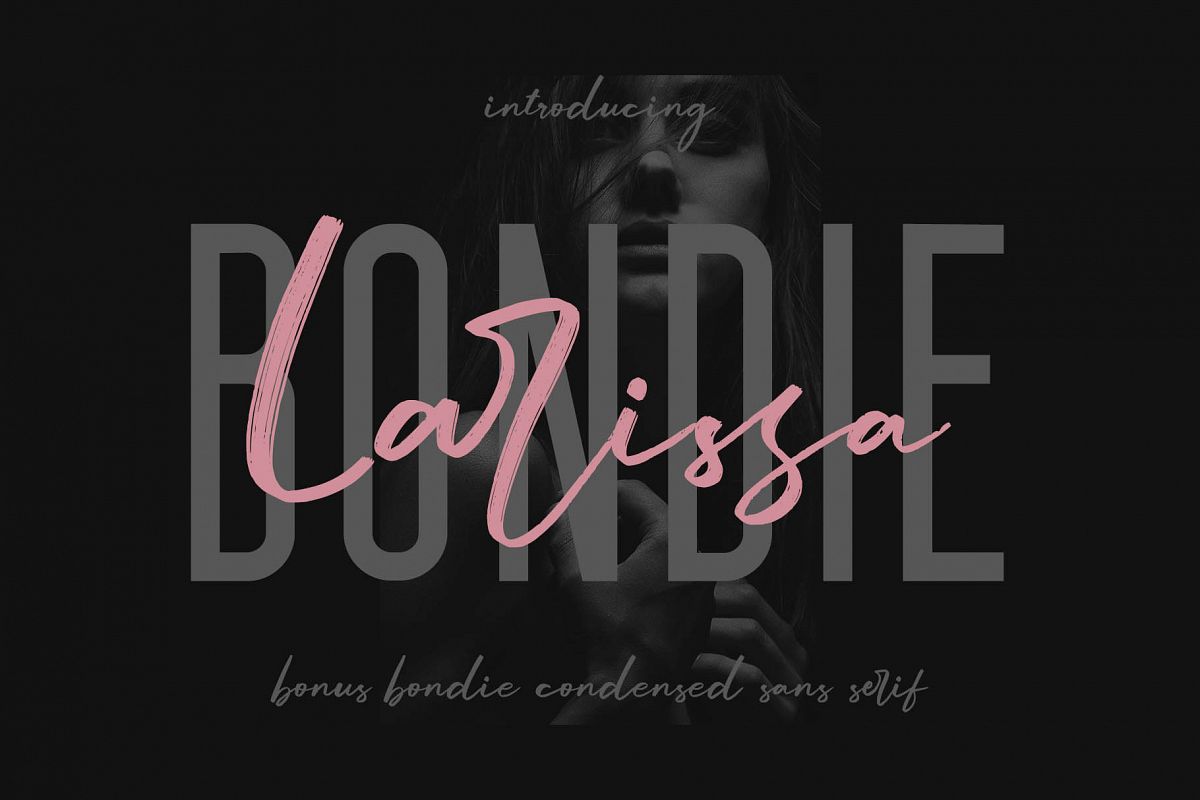
Larissa
Introducing New Font : Larissa - Handwritten Font + Bonus
Larissa - Handwritten Font + Bonus is an handwritten script font based on the expression of real handwriting. Larissa - A Lovely Script Font will work perfectly for fashion, e-commerce brands, trend blogs, wedding boutiques or any business that wants to appear upscale and chic.
Larissa - Handwritten Font + Bonus also Suitable for Logo, greeting cards, quotes, posters, branding, name card, stationary, design title, blog header, art quote, typography, art, modern envelope lettering or book design, happening style like handdrawn design or watercolor design theme, craft design, any DIY project, book title, or any purpose to make your art/design project look pretty and trendy.
1. Uppercase & Lowercase
2. Stylistic Alternates
3. Standard & Special Ligatures (ee oo ss st ar er ir or sr rr)
4. Numerals & Punctuations (OpenType Standard)
5. Accents/Multilingual characters (AÀÁÂÃÄÅCÇDÐEÈÉÊËIÌÍÎÏNÑOØÒÓÔÕÖUÙÜÚÛWYÝŸỲŸÆŒßÞ)